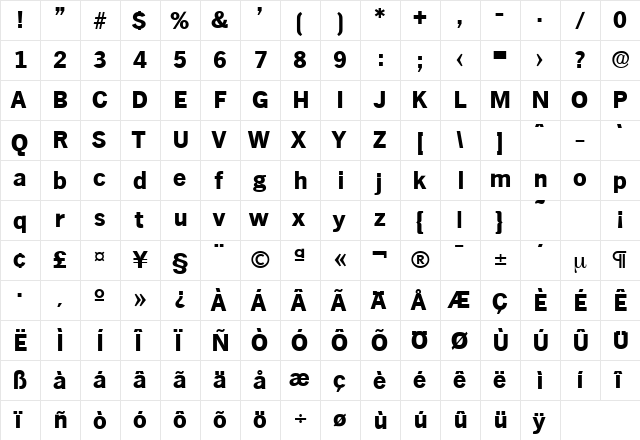
Hamburg-Serial-ExtraBold Regular
Design Context for Hamburg-Serial-ExtraBold Typeface
Hamburg-Serial-ExtraBold takes a measured approach to typography — its balanced proportions and neutral character make it a reliable workhorse for both digital and print work. Its bold stroke weight gives it real presence on the page.